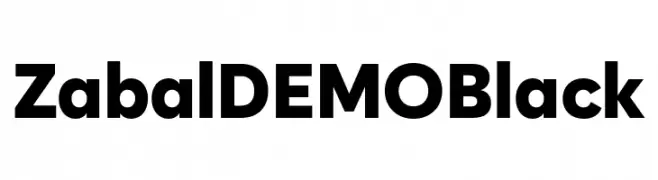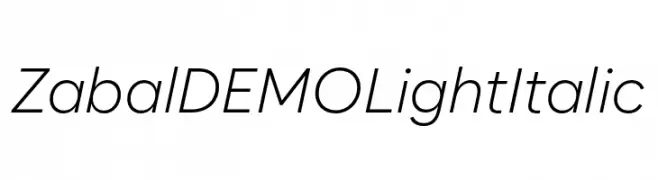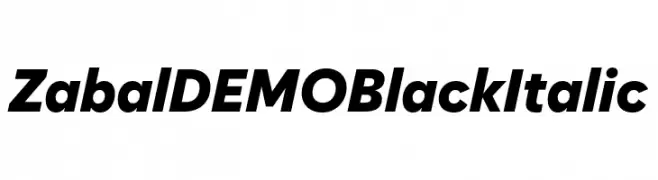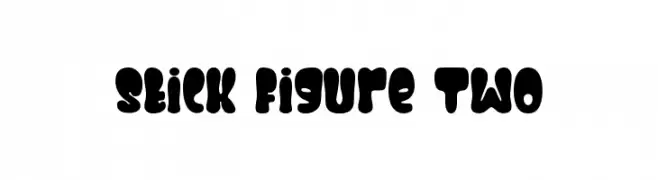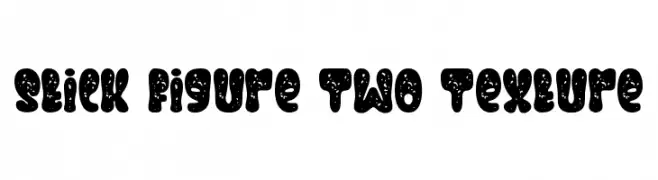
A bold, modern sans-serif font with a strong, uniform appearance.
A modern, light, and elegant italic font with clean lines.
A bold, italicized font with strong, thick strokes and a dynamic presence.
A bold, playful font with rounded, bubbly characters perfect for fun projects.
A bold, playful font with a bubbly, textured appearance.